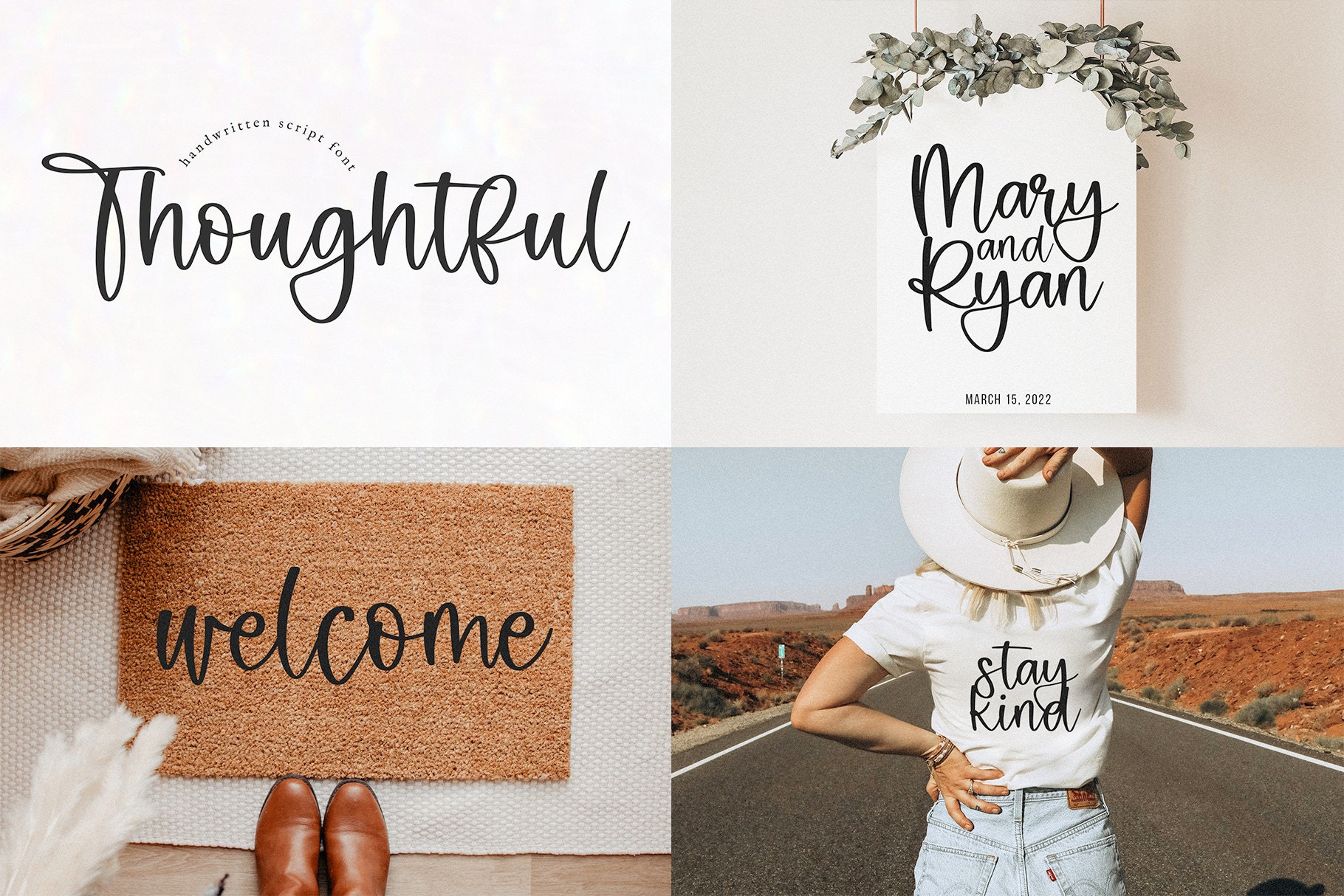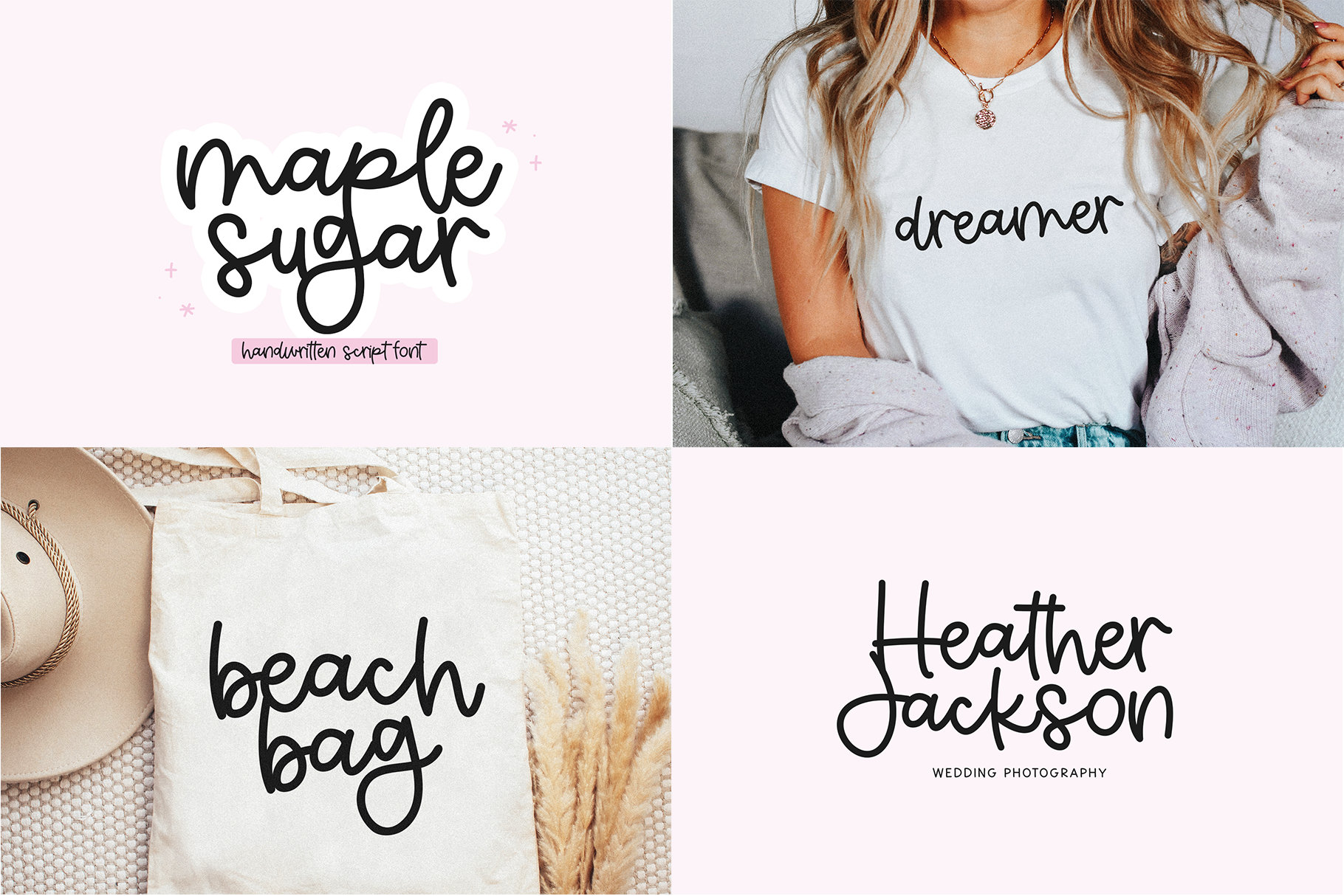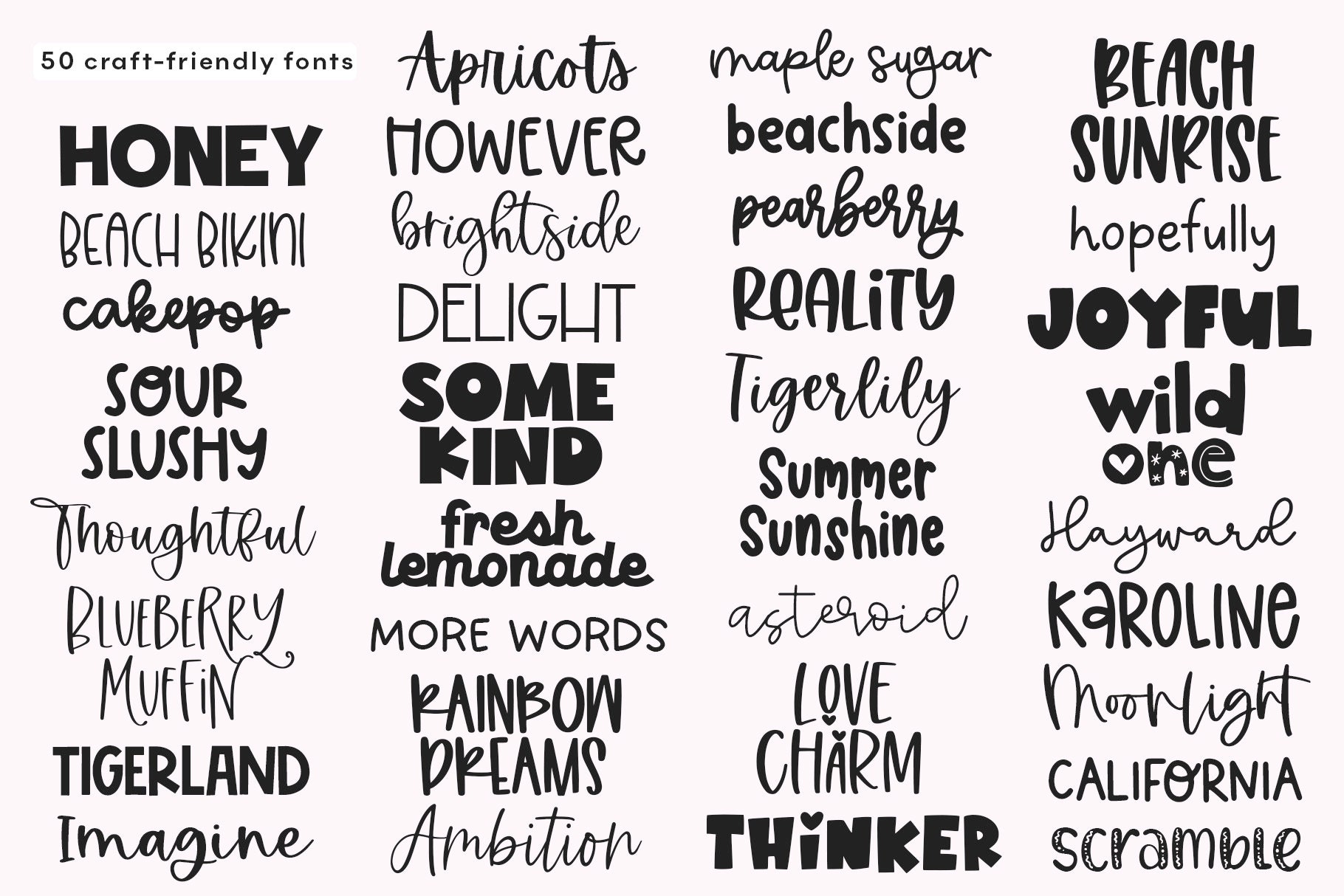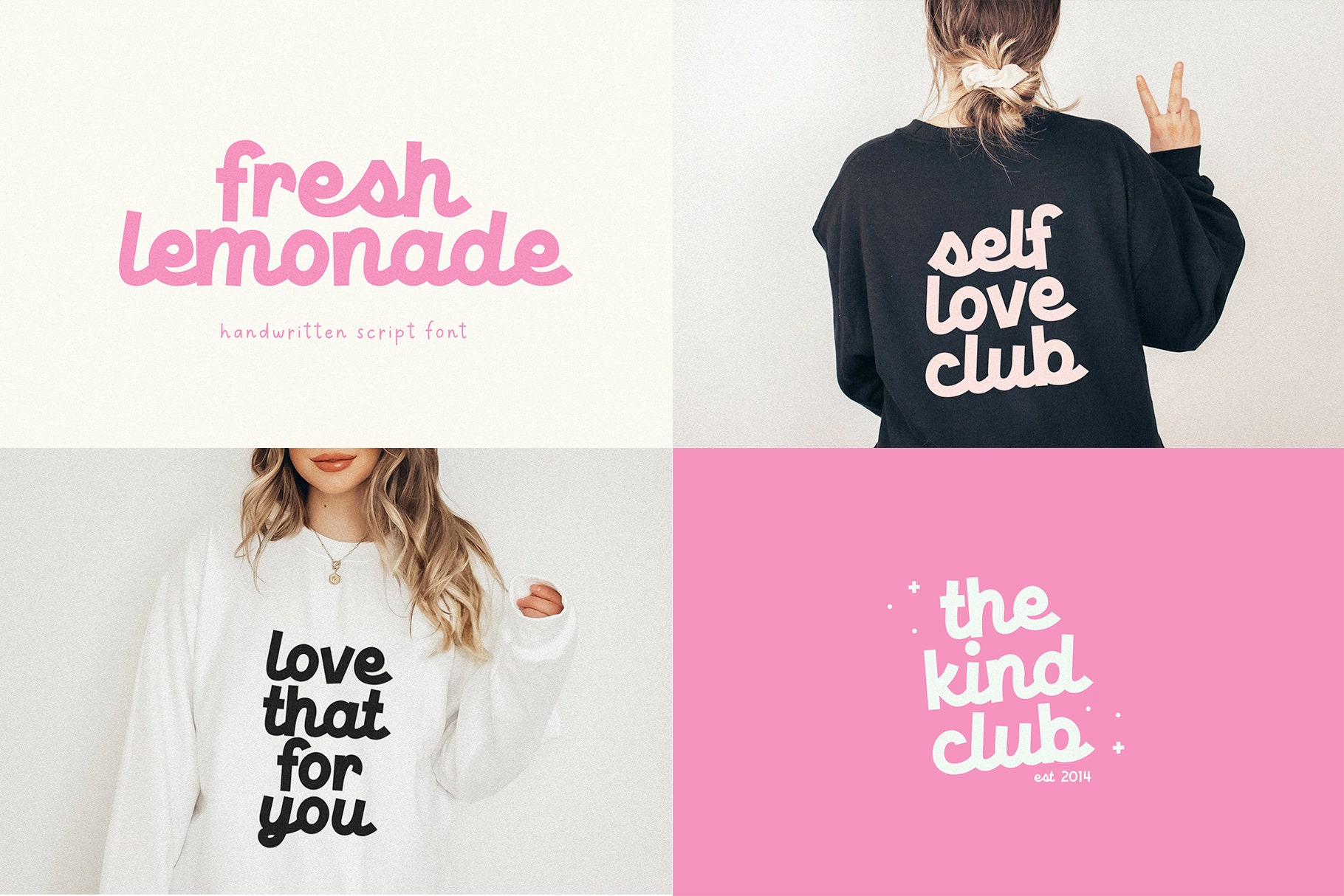
Cute Script Font Bundle for Cricut & Procreate – Handwritten, Retro & Display Fonts
Description
Unlock endless creative possibilities with this curated Cute Script Font Bundle designed for Cricut and Procreate. Packed with playful handwritten scripts, retro-inspired typefaces, and versatile display fonts, this collection is your all-in-one toolkit for crafting, branding, and design. Whether you’re making vinyl decals, stickers, SVG files, shirts, mugs, pantry labels, wedding invitations, or social posts, these fonts deliver professional results with a charming, handmade touch.
From bubbly scripts and whimsical doodles to retro headlines and casual handwritten styles, you’ll always have the perfect font for the job. Create cohesive branding with logos and business cards, add warmth to farmhouse decor, design playful greeting cards, or elevate your social media graphics. The included doodle fonts are perfect accent companions for labels, planners, and cute sticker sets.
What you’ll love:
- A versatile mix of cute, script, retro, and handwritten fonts for every project
- Eight exclusive new fonts included for fresh, on-trend designs